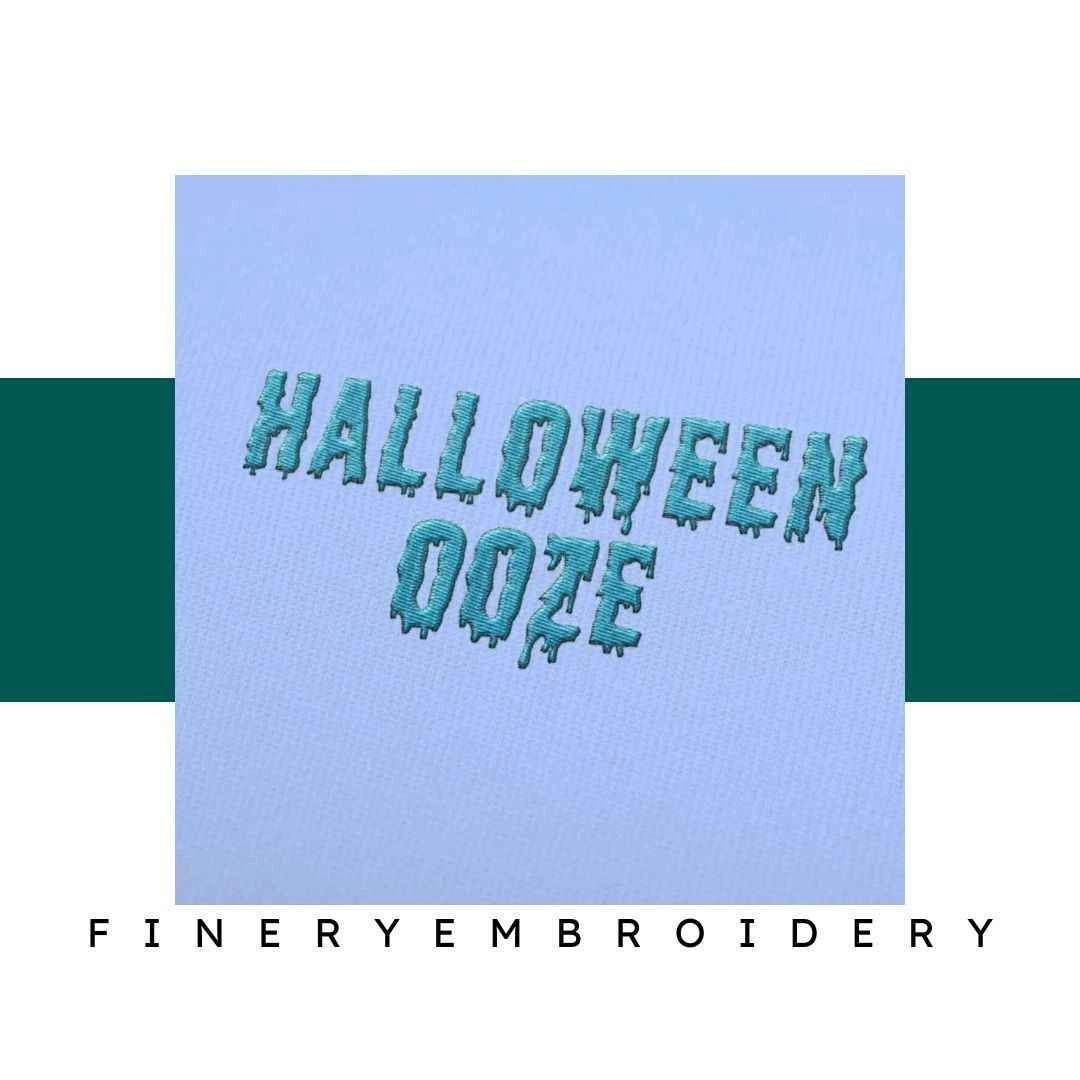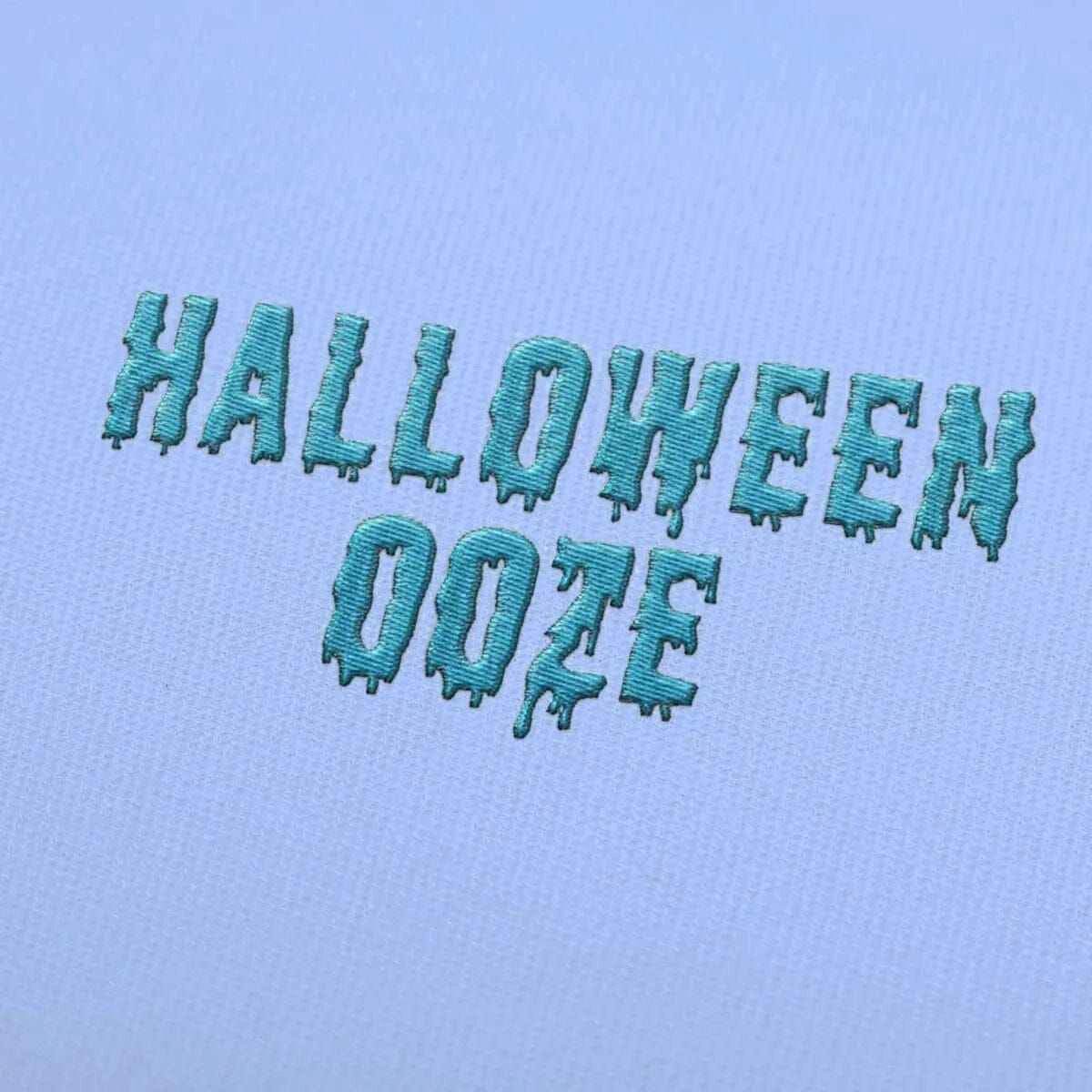
Halloween Ooze Embroidery alphabet Font Set
Unleash your creativity this Halloween with our unique Halloween Ooze Embroidery Alphabet Font Set, where spooky meets stylish!
Introducing the Halloween Ooze Embroidery Alphabet Font Set—a perfect fusion of elegance and playful spirit, designed to elevate your embroidery projects. This set is not just a collection of letters; it’s an opportunity to add a distinctive charm to your creations, captivating both the young and the young at heart.
Why You'll Love This Design
This font set brings an enchanting flair to your Halloween-themed projects. Each character is meticulously crafted to exude a whimsical ooze effect that captures the magic of the season, making it an unforgettable addition to your embroidery collection. The versatility in sizes ensures that you can tailor your designs perfectly to fit any project.
Creative Applications
Imagine adorning trick-or-treat bags, festive table runners, or cozy Halloween sweaters with these delightful letters. The Halloween Ooze Font is ideal for creating personalized gifts, spooky decorations, or even fun apparel. Let your imagination run wild as you mix and match these fonts to create something truly one-of-a-kind!
Digitized for Passionate Embroiderers
We understand the passion that goes into embroidery, which is why each character in our alphabet set has been thoughtfully digitized for ease of use. Our team has crafted this font set with love and attention to detail, ensuring that every piece you create reflects your unique style and dedication to the craft. Join us in celebrating the spooky season!
- Perfect for Halloween décor, costumes, and gifts